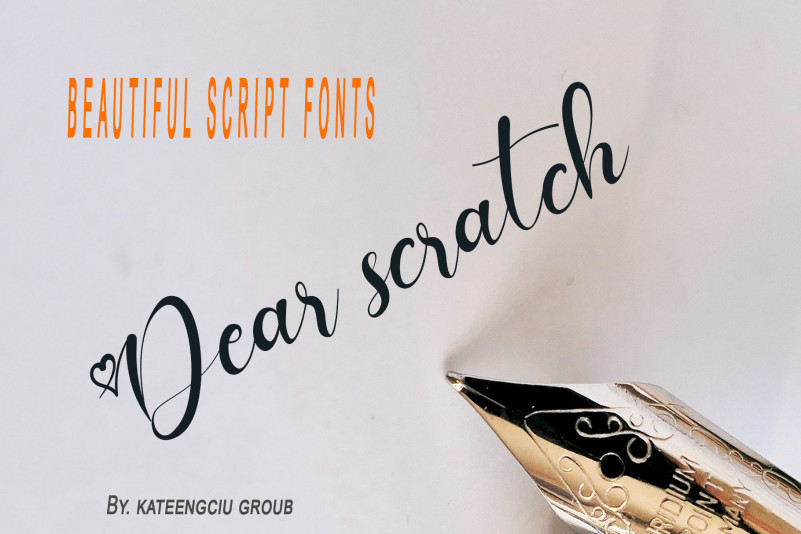
Jealous Font
Jealous Script Font
It’s a lovely script font. This font is neatly crafted and highly detailed. Jealous is PUA encoded which means you can access all glyphs and swashes with ease!